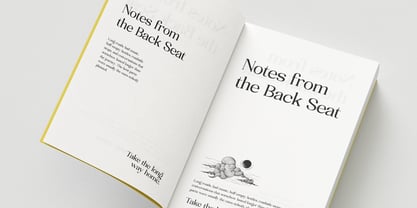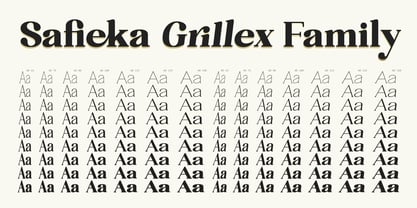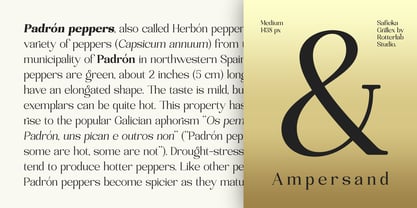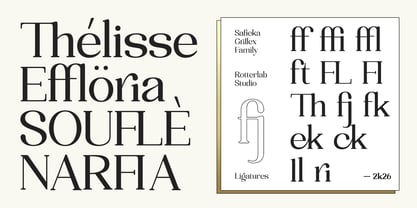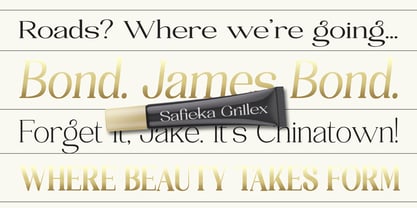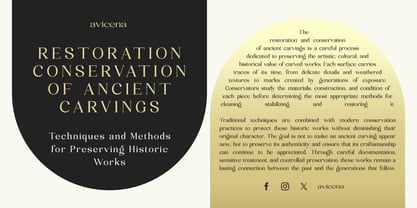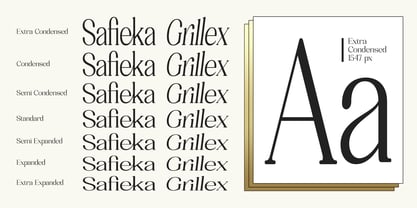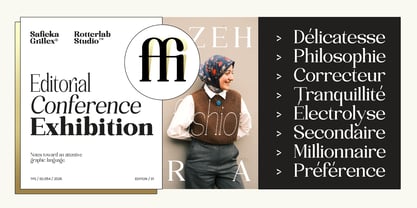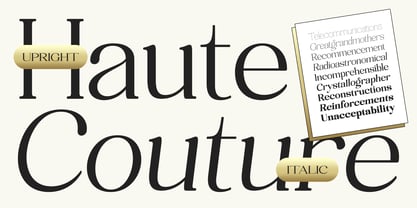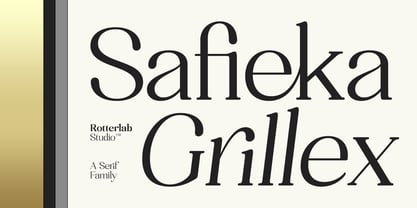
Safieka Grillex
by Rotterlab Studio
The Safieka Grillex Font Family was designed by Sidiq Fahmi and published by Rotterlab Studio. Safieka Grillex contains 126 styles and family package options. More about this family
Safeka Grillex is an elegant and sophisticated serif typeface designed to bring a luxurious and timeless character to your creative projects. With its high-contrast strokes, graceful curves, and distinctive letterforms, this font creates a refined look that feels both classic and modern.
Safeka Grillex is perfect for fashion branding, luxury logos, magazines, editorial layouts, beauty products, invitations, packaging, posters, social media designs, and other premium visual projects.
Whether used for a bold headline or an elegant brand identity, Safeka Grillex adds a touch of class, sophistication, and artistic personality to every design.
Designers: Sidiq Fahmi
Foundry: Rotterlab Studio